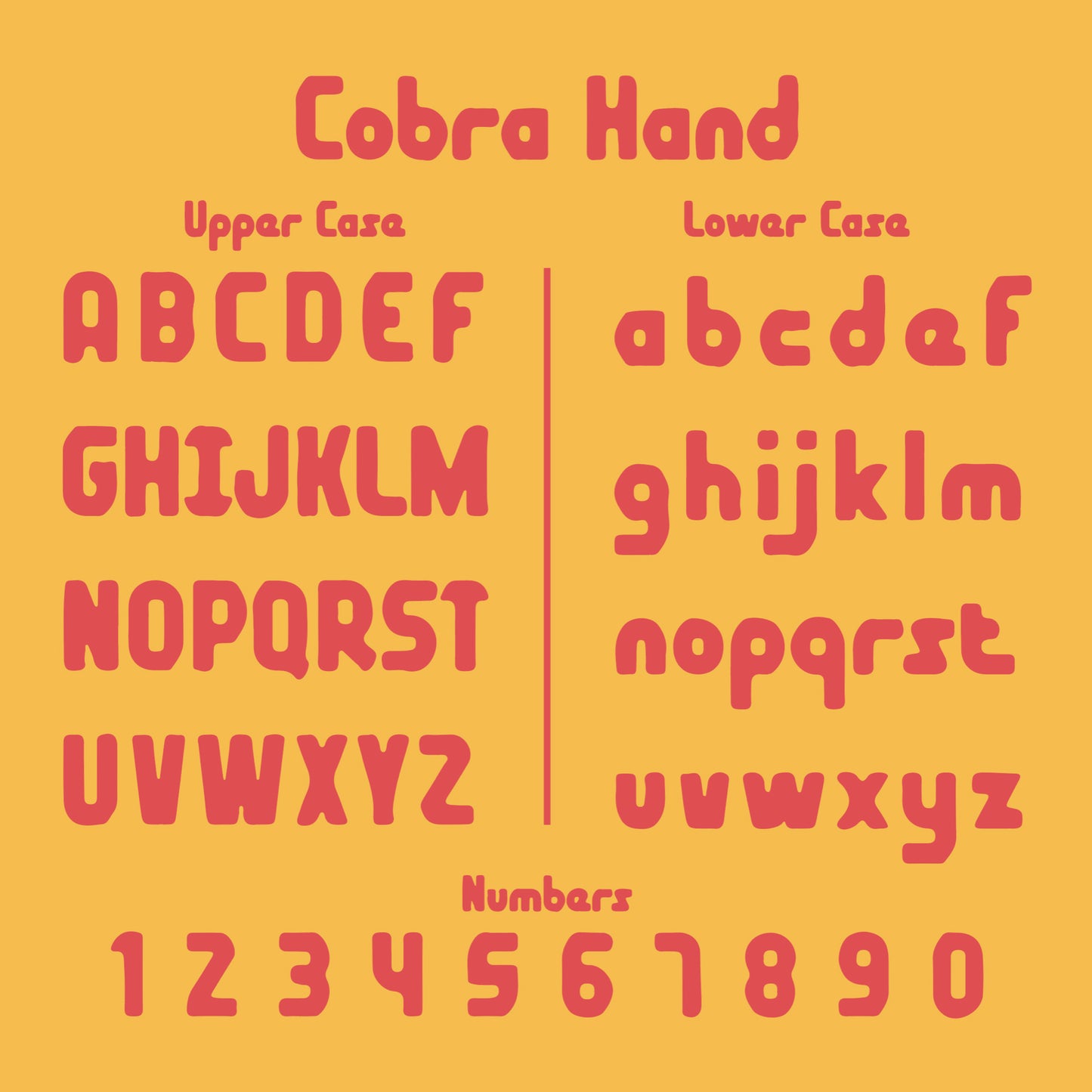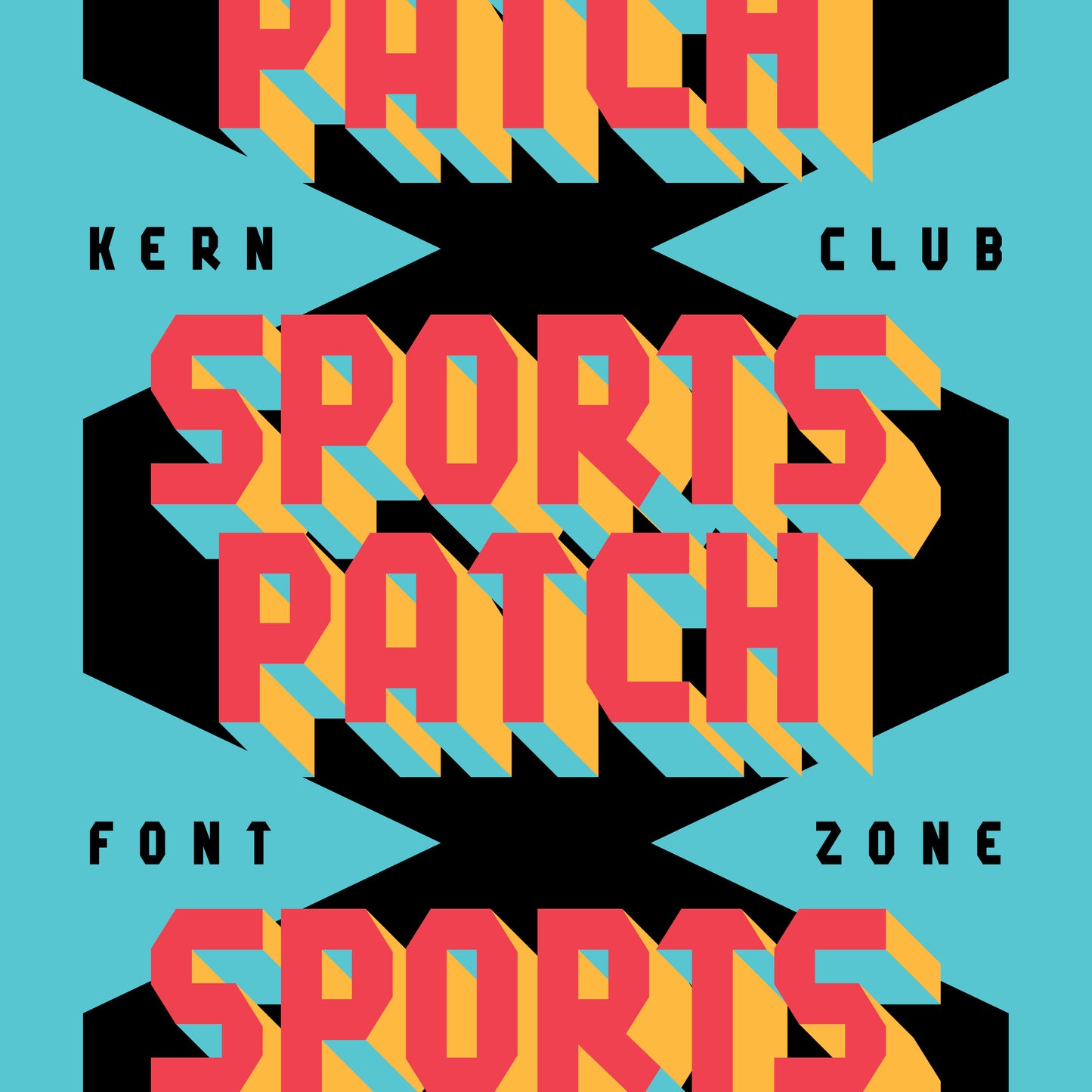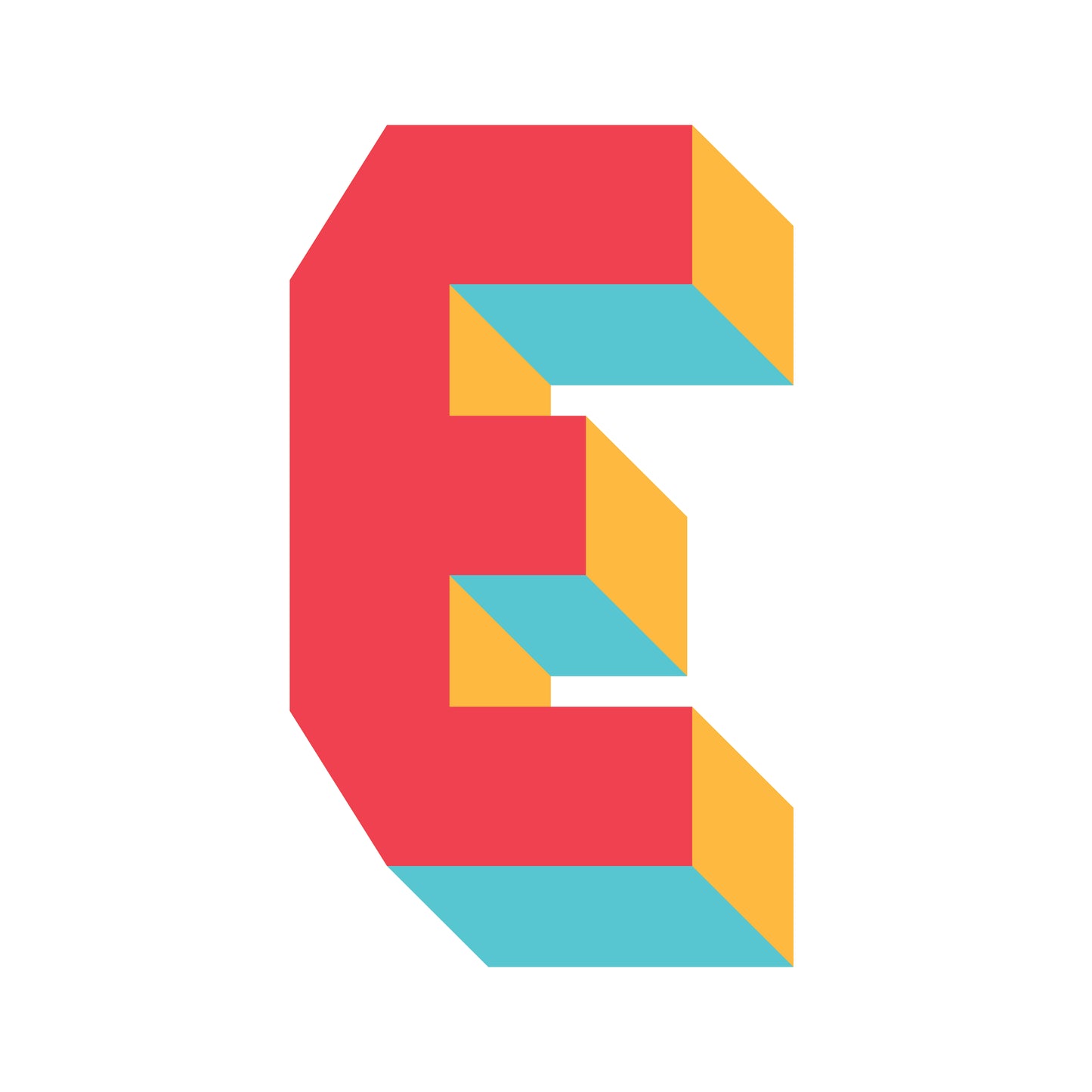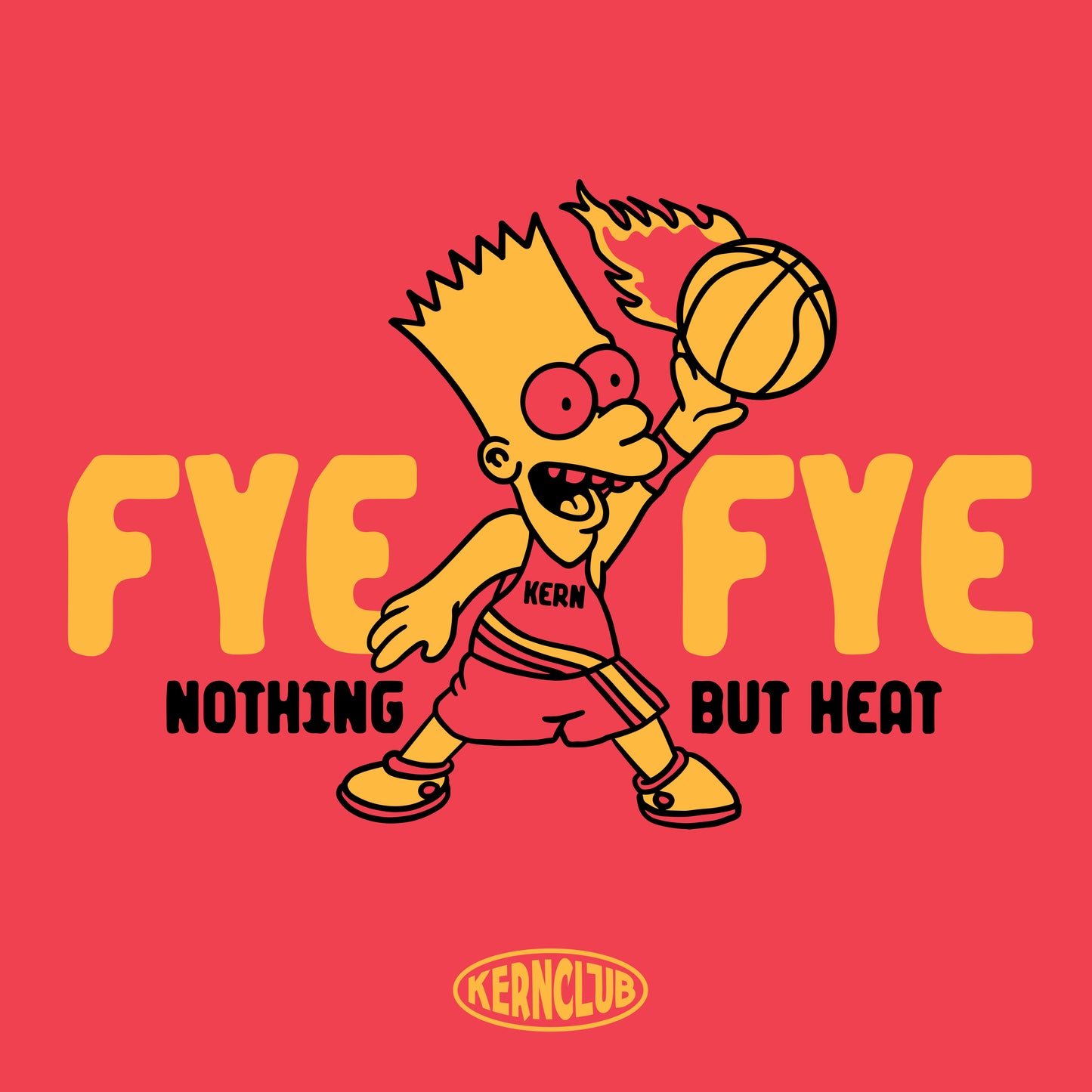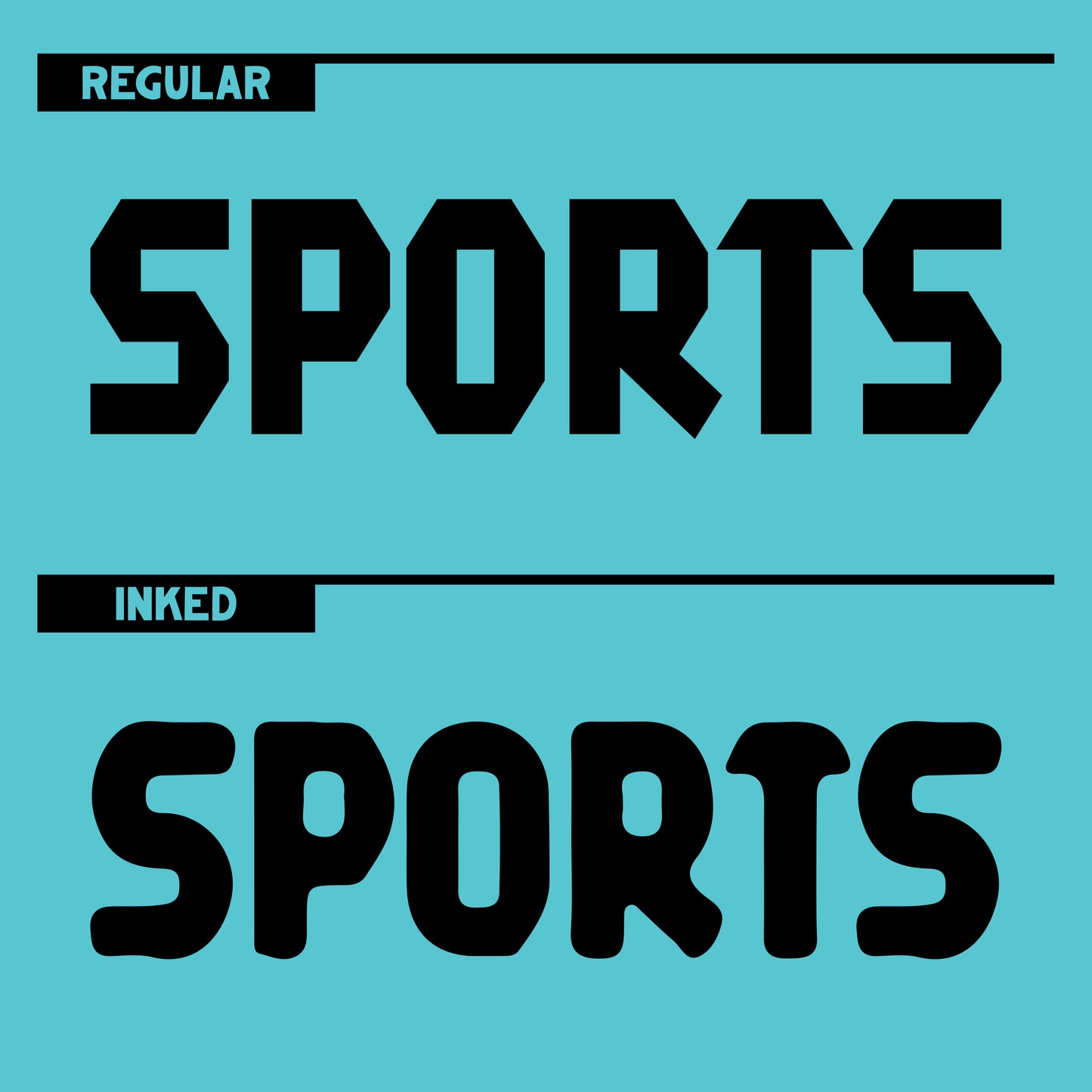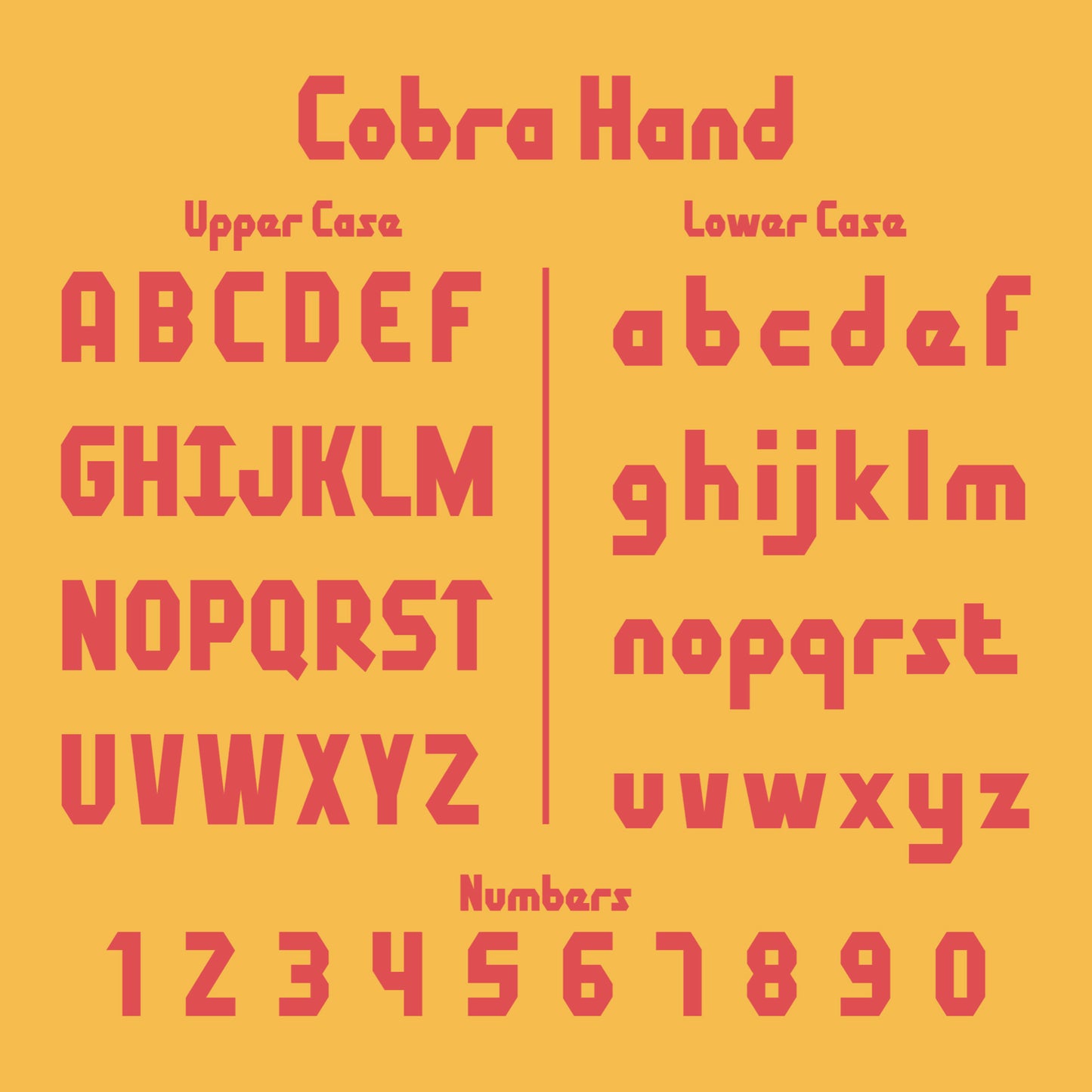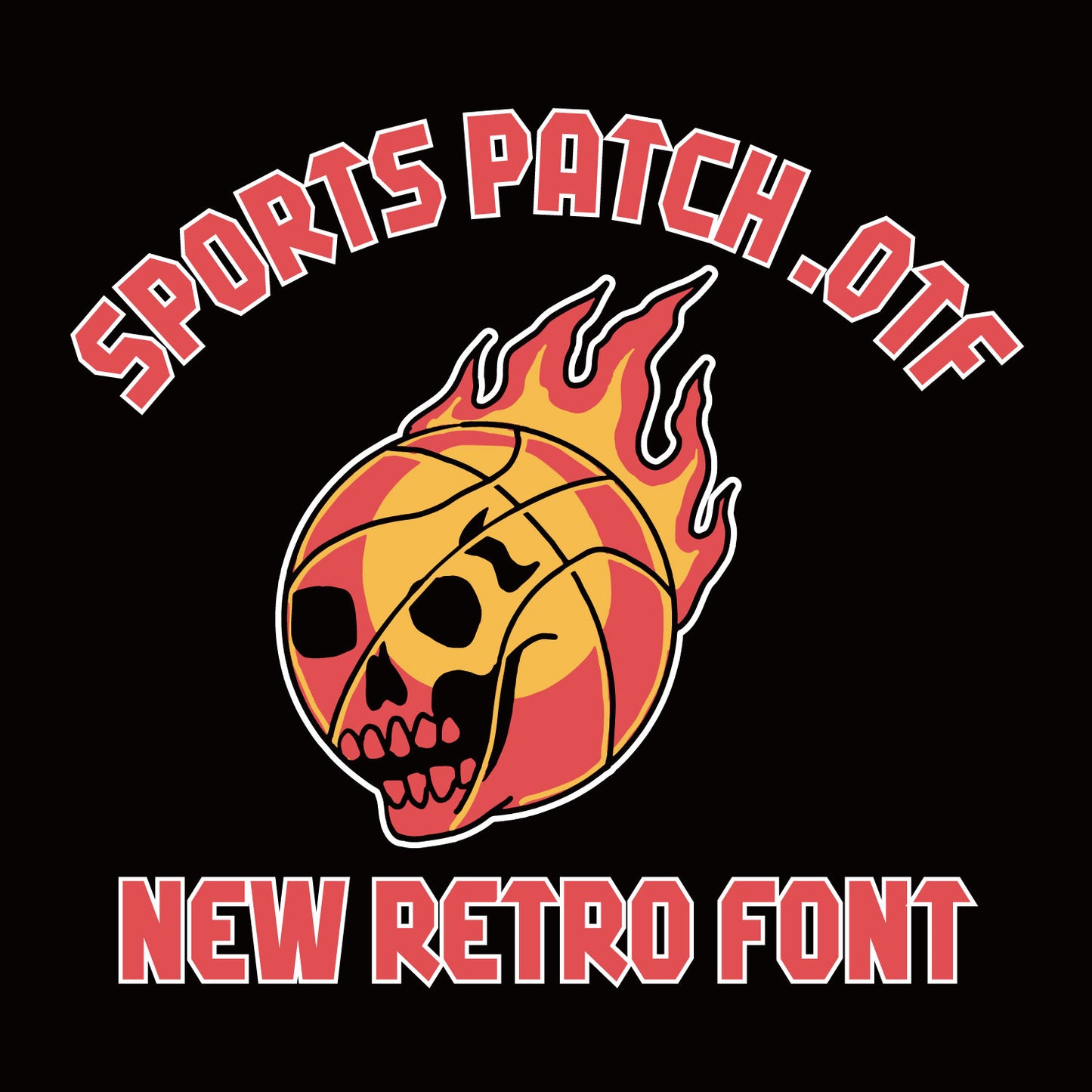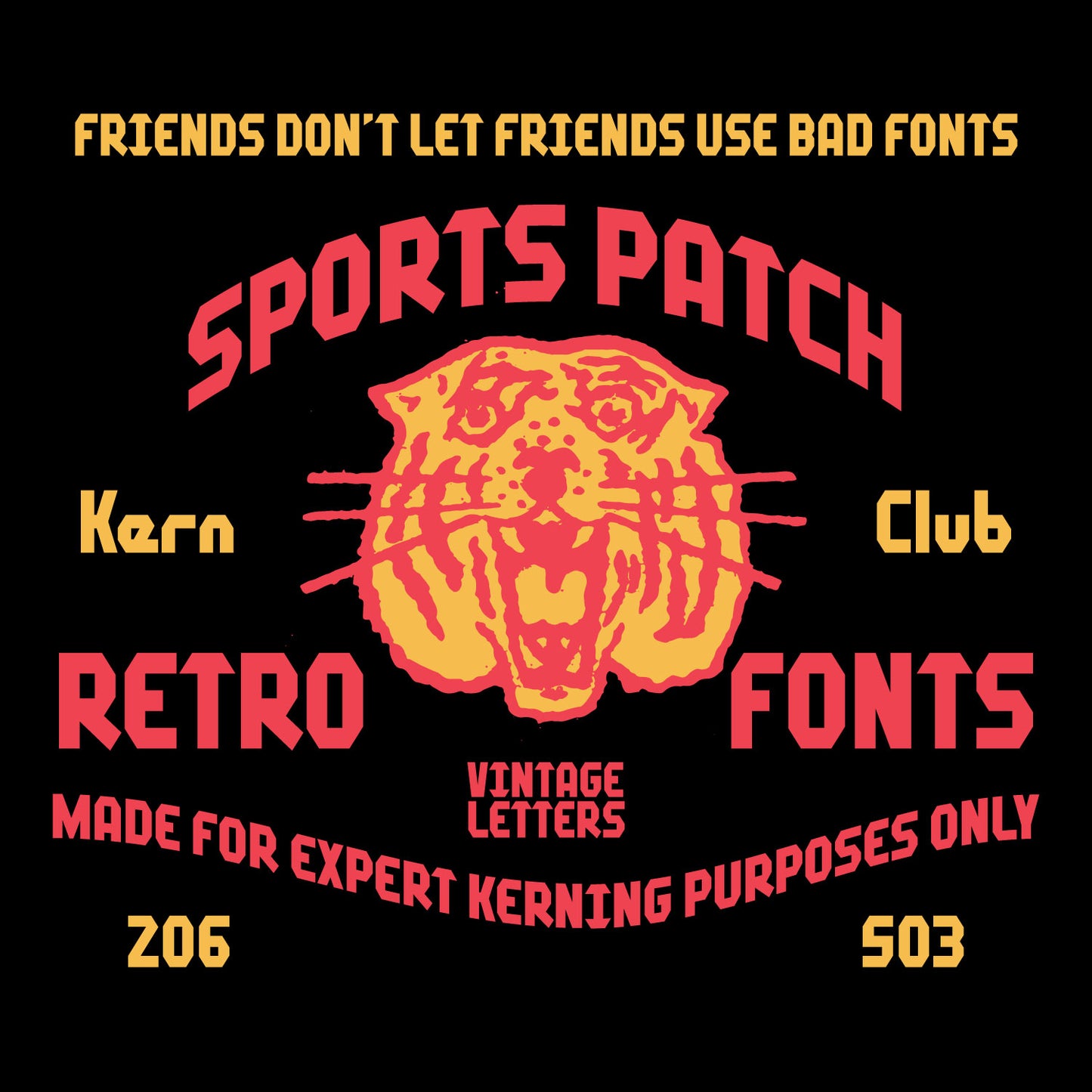
Sports Patch Font
Hit a home run on your next design project with this athletic font.
- Lowercase Character Set a-z
- Includes regular and inked versions (2 fonts)